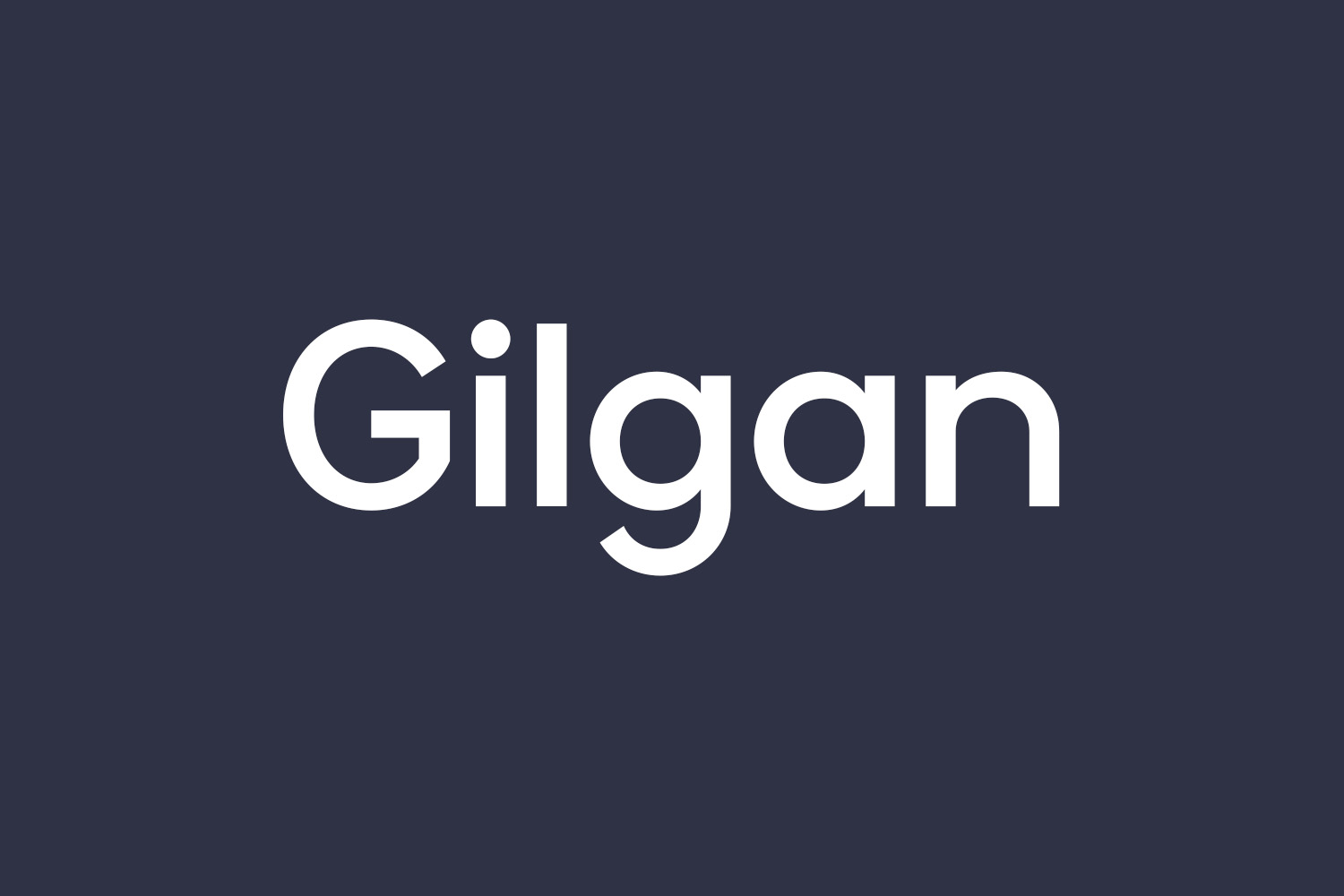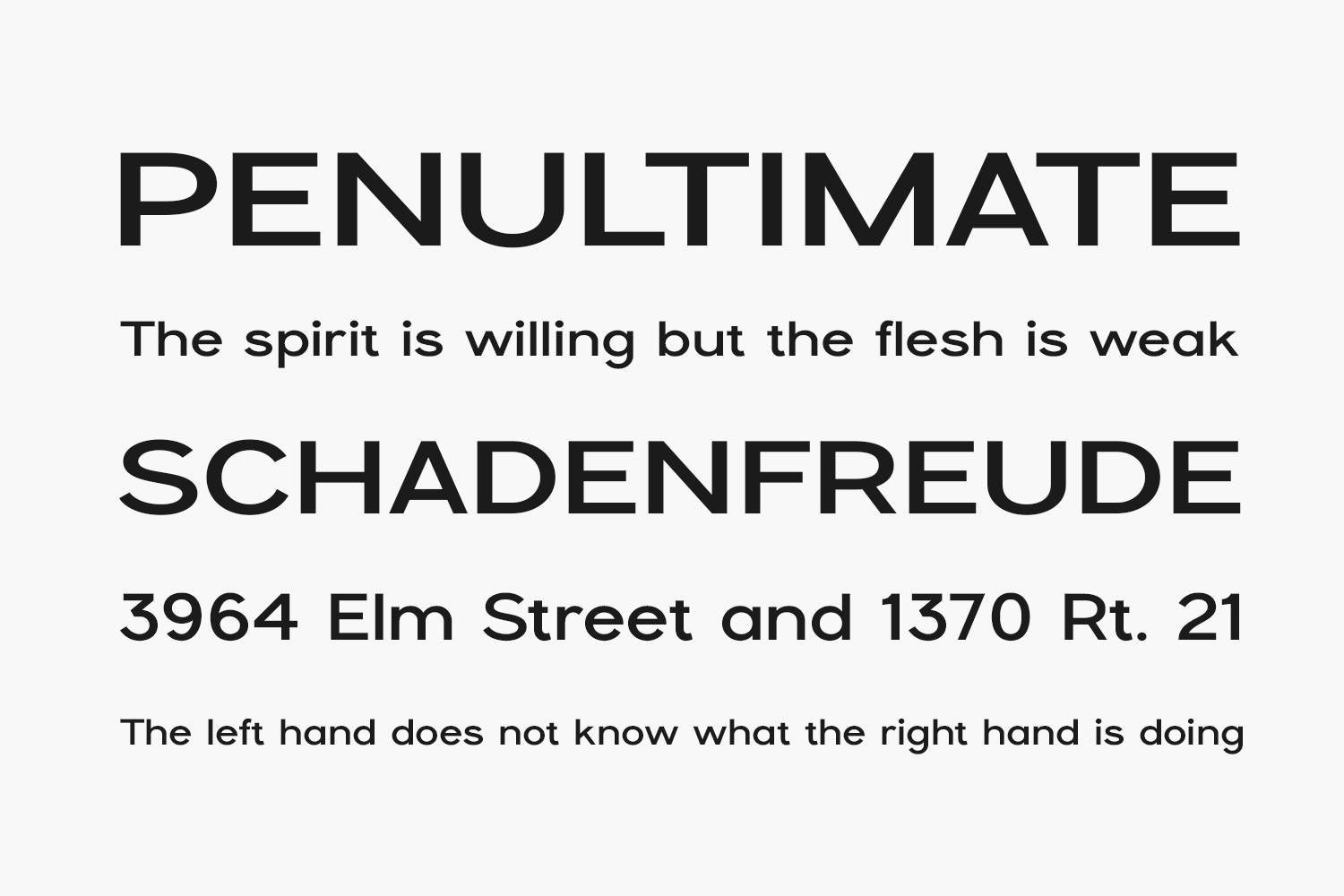
Gilgan Free Font represents a sleek and tidy sans serif typeface. Whether you’re in search of fonts suitable for Instagram or calligraphy scripts to enhance your DIY undertakings, this font will transform any imaginative concept into an authentic work of art. Gilgan Free Font is free for personal use only. Please purchase the full version for commercial use.